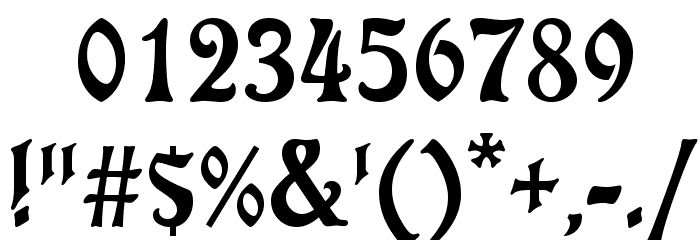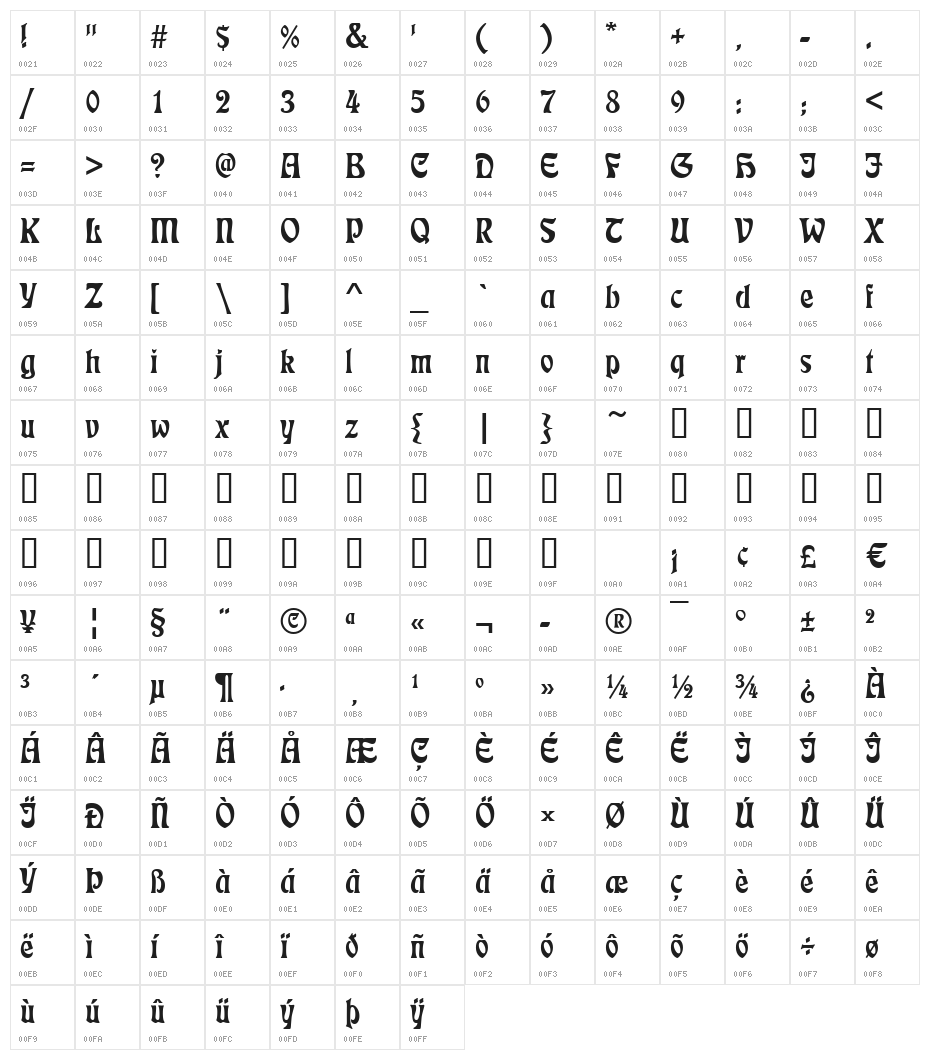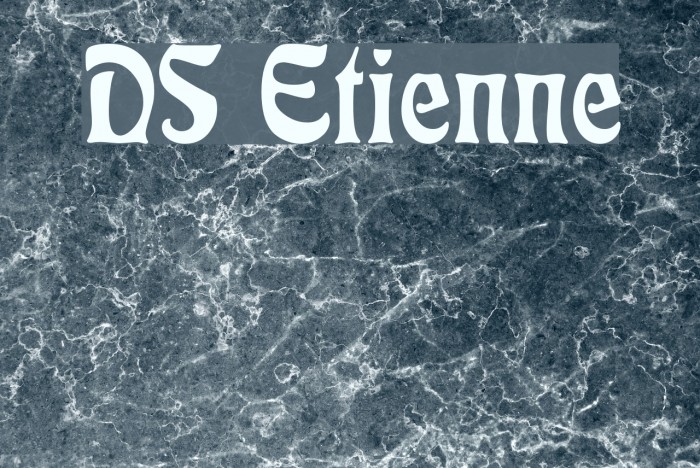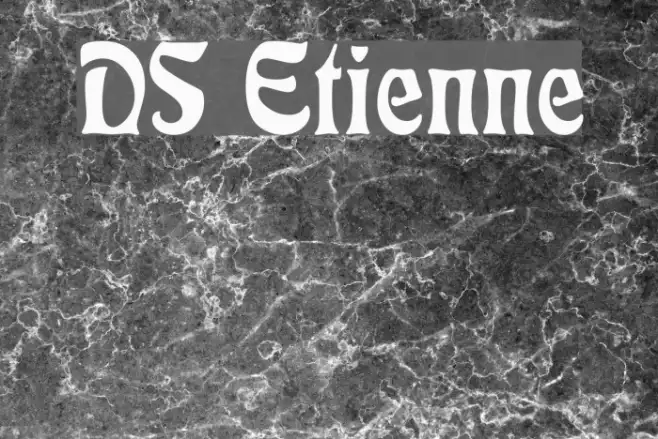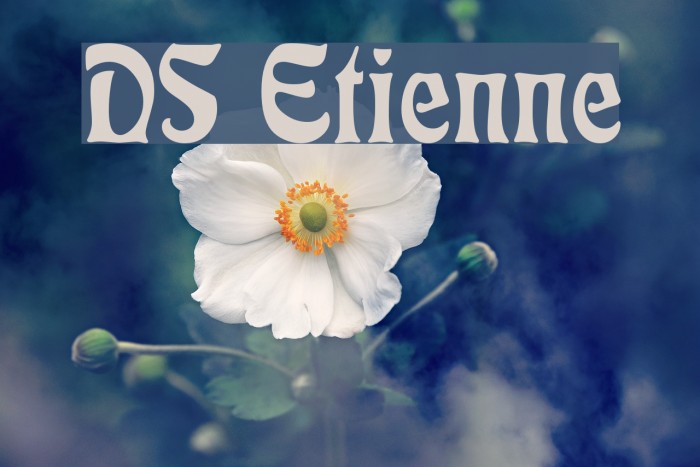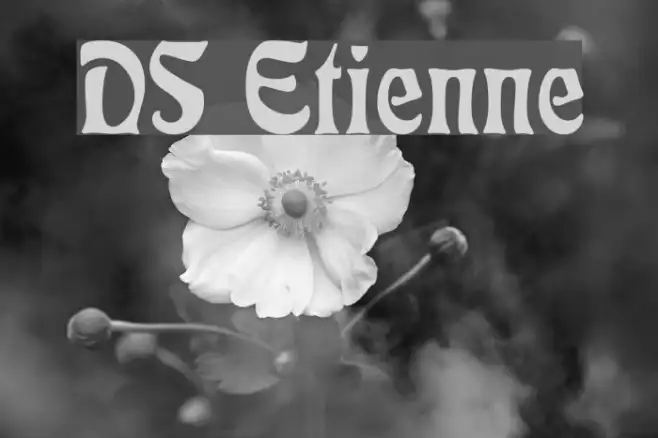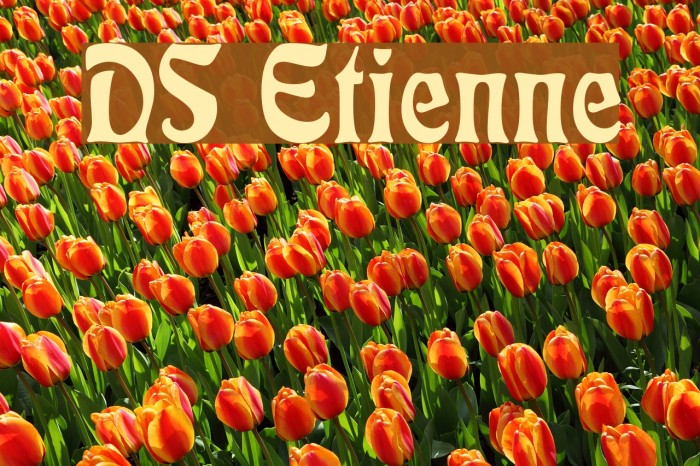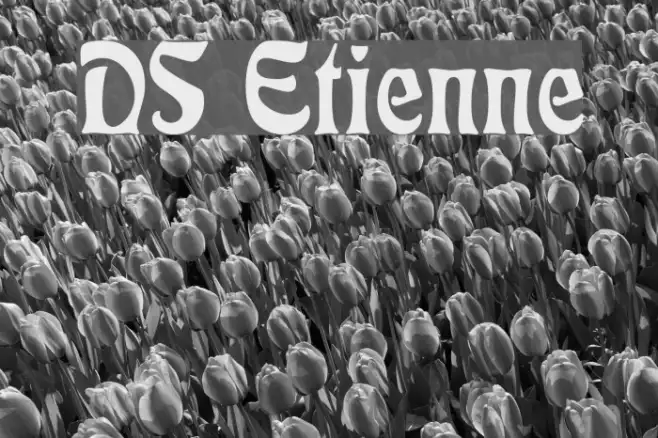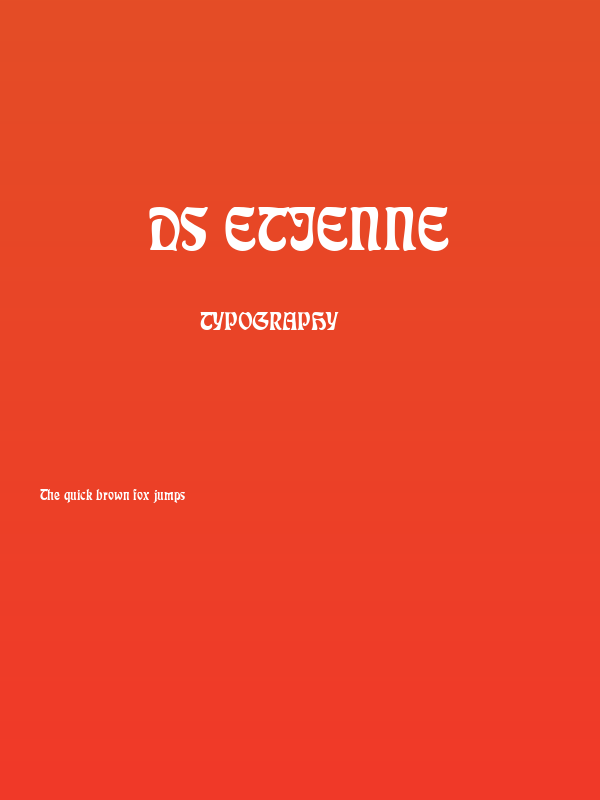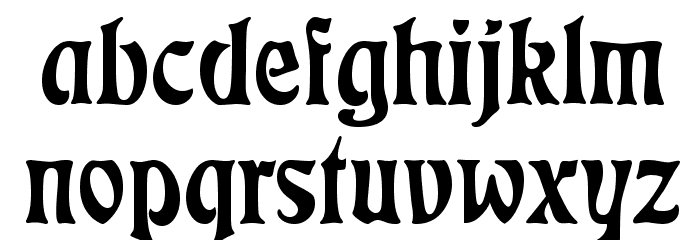
DS Etienne Font
DS Etienne Description
This font features a distinctive and bold style with a medieval or gothic influence. The characters are characterized by their thick, heavy strokes and sharp, angular edges, giving them a strong and commanding presence. The uppercase letters are particularly striking, with unique flourishes and a sense of grandeur. The lowercase letters maintain the same boldness, with a slightly more condensed form. Numbers are consistent with the overall style, ensuring readability while maintaining the decorative elements. Special characters are well-integrated, providing a cohesive look across all glyphs. This font is ideal for projects that require a dramatic and historical aesthetic.
| Proposed Projects | Ideal for historical-themed designs, book covers, posters, and branding that requires a dramatic flair. |